15 Best Sans Serif Fonts for Modern Websites in 2026
Typography continues to shape how websites feel long before visitors read a single sentence. In 2026, modern web design is leaning heavily toward clean layouts, refined branding, minimalist interfaces, and highly readable typography. Thatโs exactly why the best sans serif fonts for modern websites remain essential for designers, bloggers, startups, agencies, and creative brands.
The newest generation of sans serif fonts blends clarity with personality. Some feel sleek and futuristic for tech brands, while others introduce soft geometric curves perfect for lifestyle websites or premium portfolios. Creative Fabrica has become one of the best places to discover these modern font styles thanks to its huge library of contemporary typography resources for digital creators.
15 Best Sans Serif Fonts for Modern Websites
1. Minimal Geometric Sans
Geonowa Font
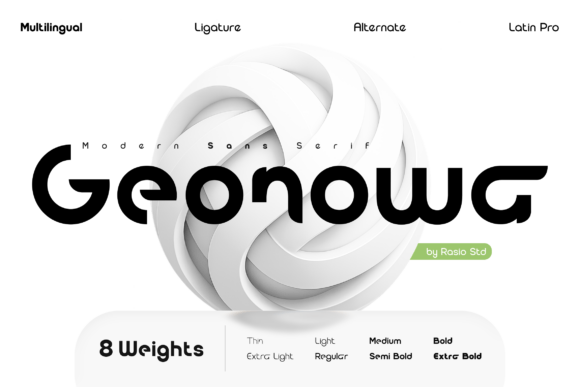
Enchanted Love Font
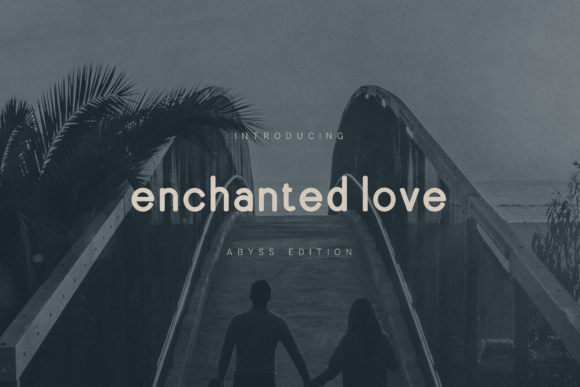
Lorin Font
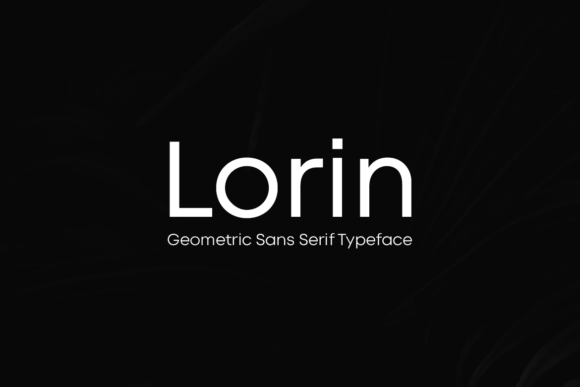
Geometric sans serif fonts continue to dominate modern website design. Their symmetrical letterforms create an organized and highly professional look that works beautifully for startups, architecture studios, and tech platforms.
These fonts pair especially well with monochrome layouts, oversized headings, and modern editorial grids.
2. Elegant Neo-Grotesk
Quanta Grotesk Pro Font
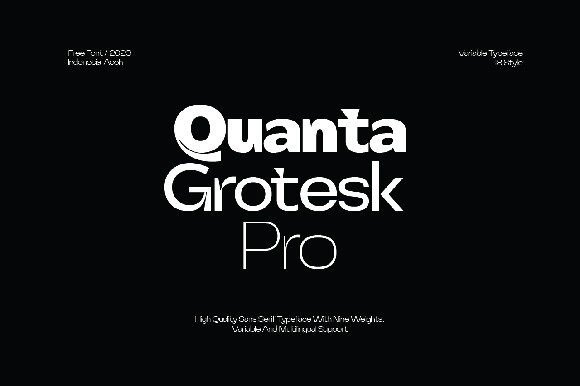
Organic Font
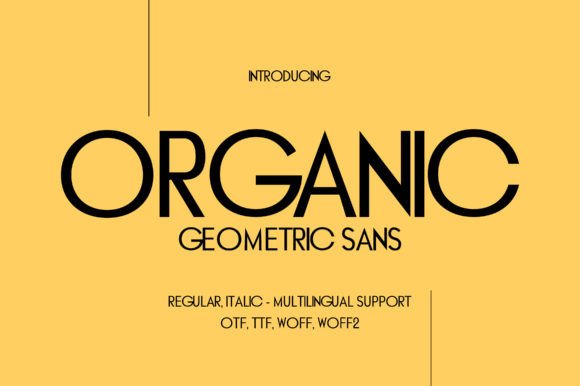
Glasgow Grotesk Font
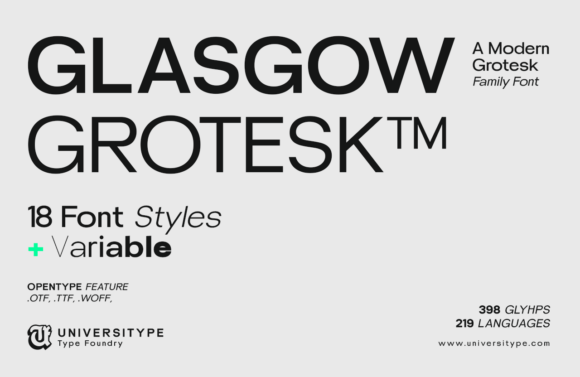
Neo-grotesk typography remains one of the most versatile styles for modern web interfaces. It feels timeless, neutral, and sophisticated without becoming visually cold.
This style is ideal for:
- corporate websites
- digital agencies
- finance brands
- luxury portfolios
- minimalist blogs
The clean structure allows photography and branding visuals to stand out naturally.
3. Soft Rounded Sans
Notagle Font
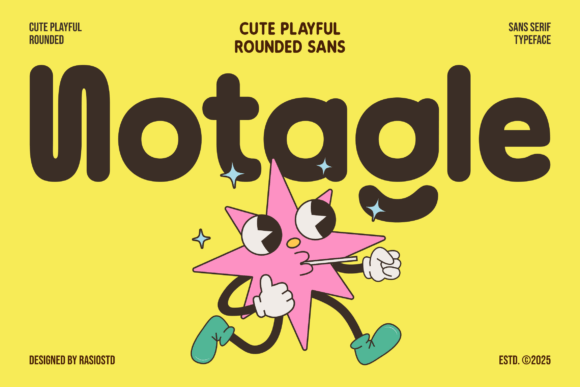
Ogelo Font
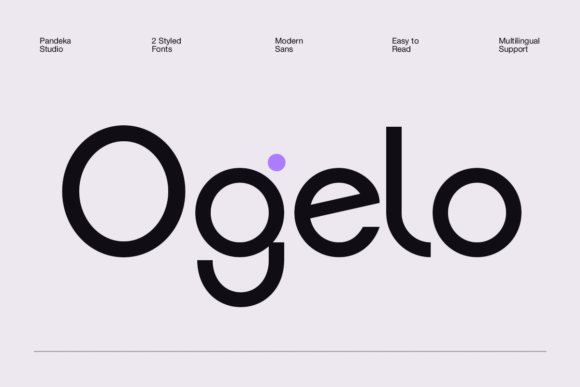
Poffina Font
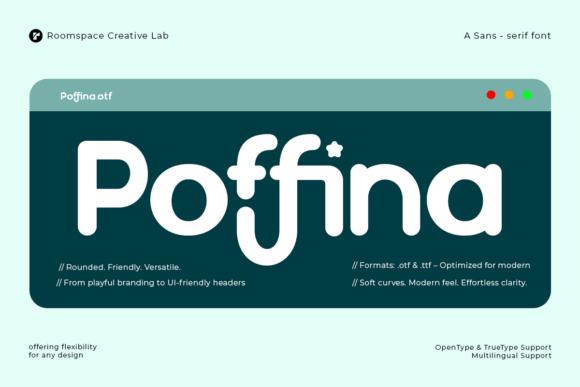
Rounded sans serif fonts are becoming increasingly popular for modern websites that want to feel approachable and friendly.
Soft curves create a welcoming aesthetic perfect for:
- lifestyle brands
- wellness websites
- creative studios
- mobile apps
- online communities
These fonts add personality while still maintaining a clean modern appearance.
4. Modern Editorial Sans
Groovern Font
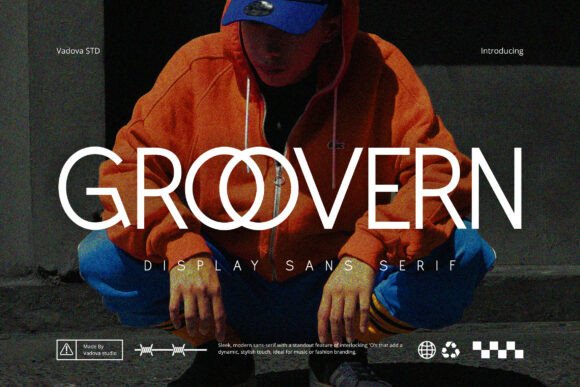
Orlan Font
Sublime Font
Editorial-inspired sans serif fonts blend magazine-style elegance with contemporary web readability.
They typically feature:
- refined spacing
- subtle contrast
- sophisticated proportions
- premium branding energy
This category works exceptionally well for fashion blogs, creative magazines, and design-focused websites.
5. Futuristic Display Sans
Noblemoon Font
Turbozone Font
Onesan Font
Futuristic sans serif fonts are gaining traction in gaming, AI, crypto, and technology branding.
These styles often include:
- sharp angles
- wide spacing
- modern sci-fi aesthetics
- experimental letterforms
Used carefully, they can instantly make a website feel cutting-edge and visually memorable.
6. Scandinavian Minimal Sans
Stockholem Font
Gorga Text Font
Scandinavian-inspired typography focuses on simplicity, whitespace, and visual calmness.
These fonts usually feature:
- understated elegance
- balanced proportions
- soft geometric construction
- highly readable forms
Perfect for interior design brands, modern ecommerce stores, and minimalist portfolio websites.
7. Luxury Branding Sans
Tangoure Font
Vorue Font
Serko Font
Luxury sans serif fonts are becoming a major trend for beauty brands, premium packaging, and elegant online boutiques.
Instead of relying on decorative typography, these fonts use:
- refined spacing
- subtle curves
- elegant proportions
- clean visual rhythm
The result feels upscale without appearing overly formal.
8. Ultra Clean UI Sans
Perfect Corporate Font
Gradvis Font
Visionary Ultra Font
UI-focused sans serif fonts prioritize readability above everything else.
These fonts are designed specifically for:
- dashboards
- SaaS products
- apps
- user interfaces
- modern admin panels
Their simplicity helps reduce visual clutter while improving navigation clarity.
9. Contemporary Tech Sans
Wexora Font
Dashcore Font
Nezyha Font
Tech-inspired sans serif fonts combine geometric structure with futuristic minimalism.
Are sans serif fonts good for mobile websites?
Yes. Sans serif fonts typically maintain excellent readability on smaller screens, making them ideal for mobile-first design.